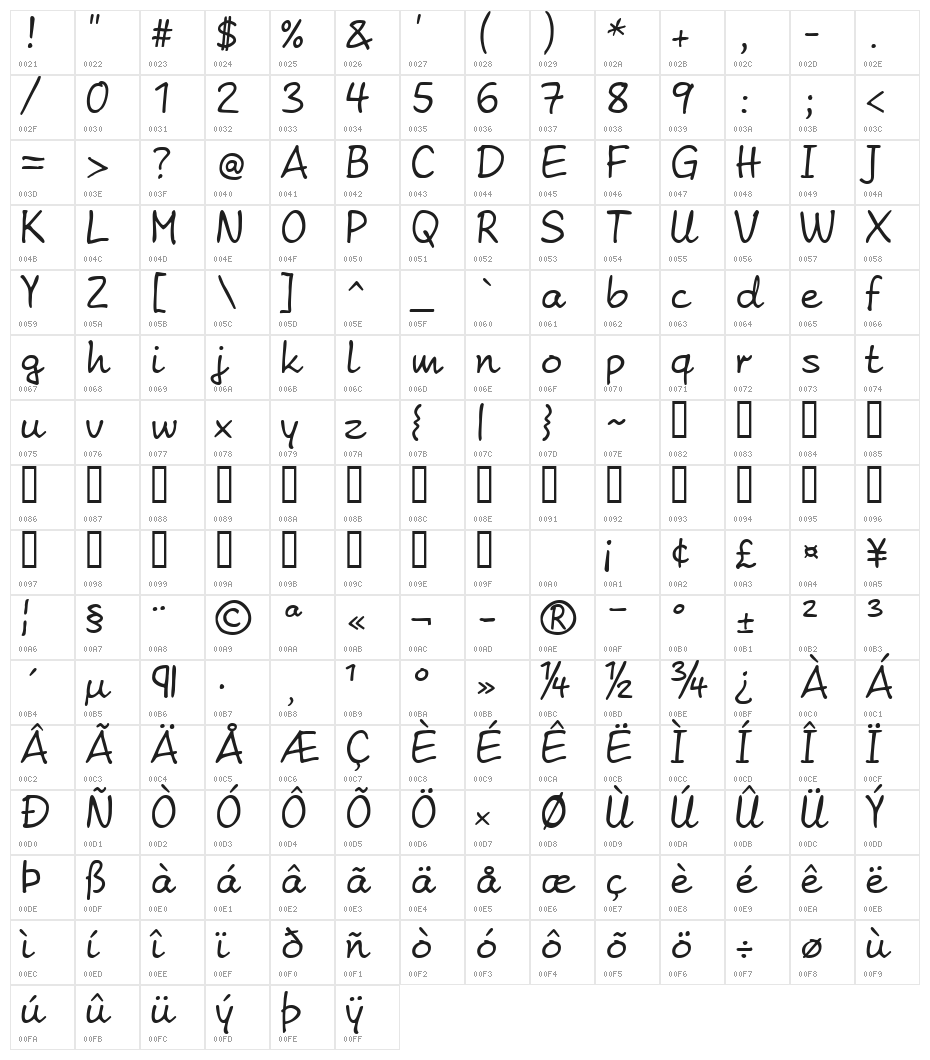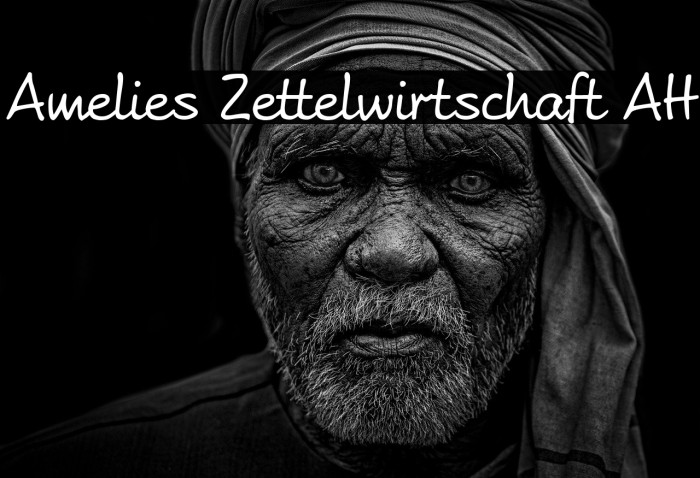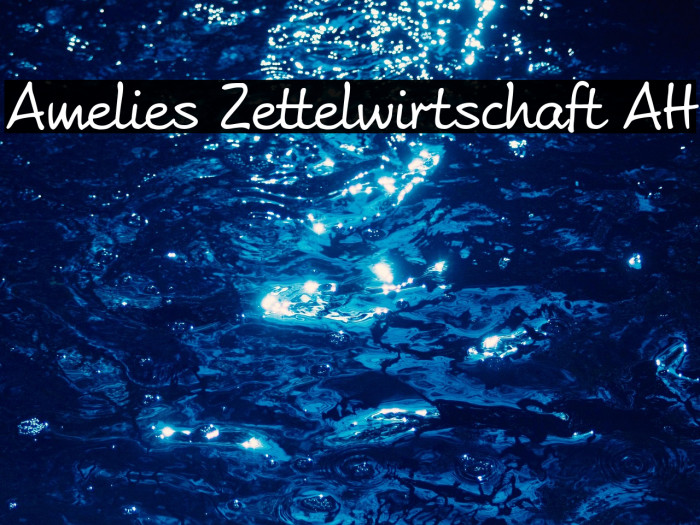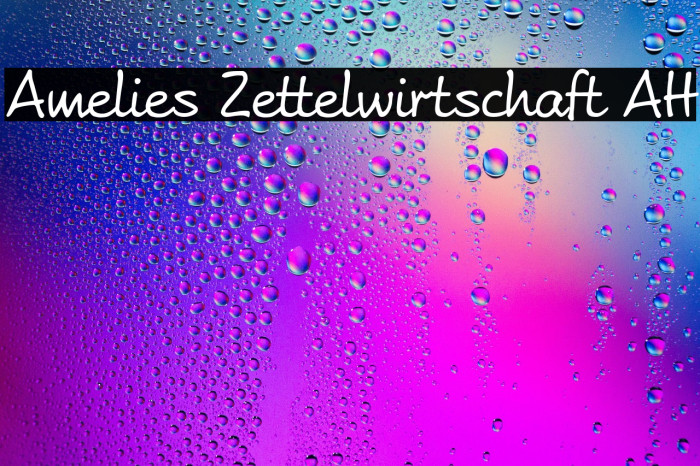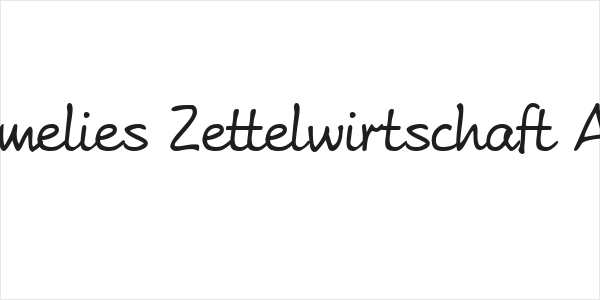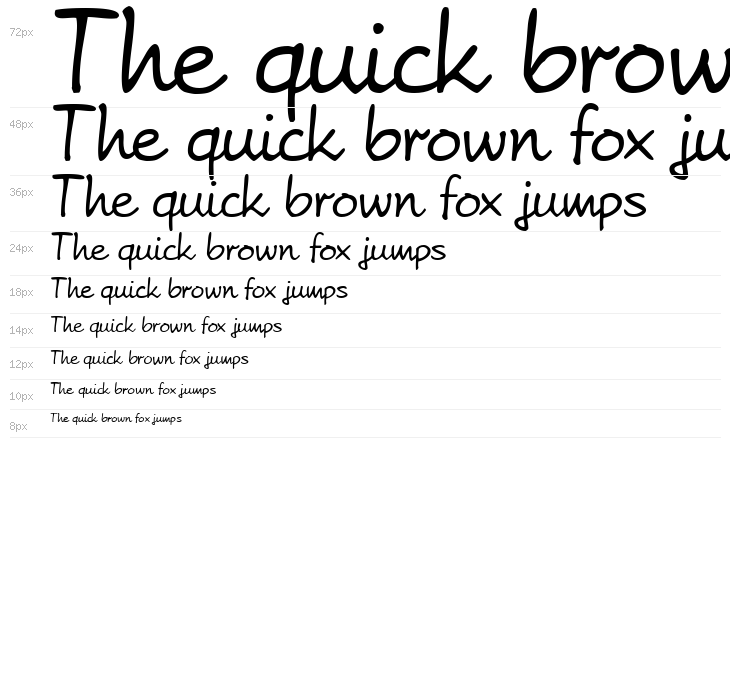
Amelies Zettelwirtschaft AH Font
Amelies Zettelwirtschaft AH Description
This font exudes a playful and casual handwritten style, characterized by its smooth, flowing curves and slightly irregular strokes that mimic natural handwriting. The uppercase letters are bold and slightly rounded, while the lowercase letters maintain a consistent flow with a touch of whimsy. The numerals and special characters align with the overall informal aesthetic, making it suitable for projects that require a personal touch. The font's legibility is enhanced by its medium contrast and normal character spacing, ensuring clarity in various sizes.
| Use Case | Headlines, Informal text, Personal projects |
| Proposed Projects | Ideal for greeting cards, invitations, personal blogs, or any project needing a casual, friendly touch. |